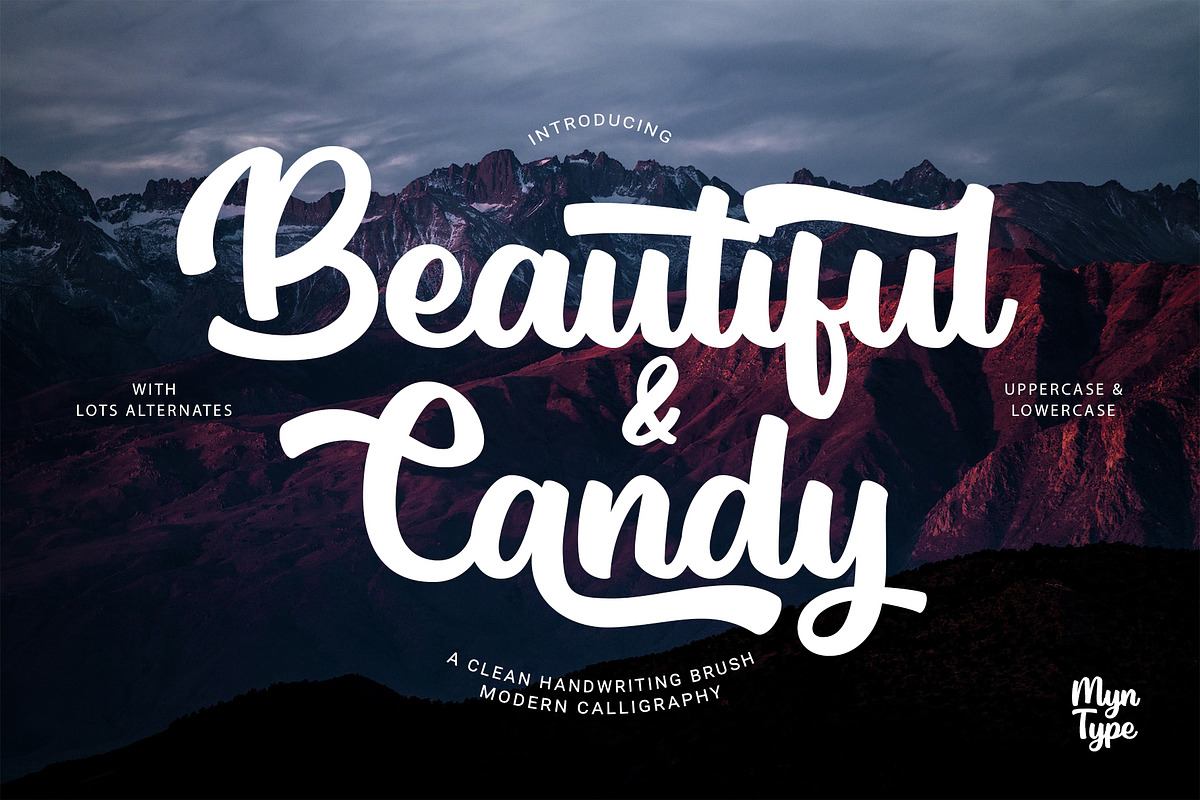
Beautiful Candy - Modern Calligraphy Font Free Download is a delicate and stylish script typeface designed to bring elegance and charm to your projects. With its smooth, flowing curves and sophisticated letterforms, this font is perfect for wedding invitations, branding, logos, social media posts, and more. Its modern calligraphy style combines timeless beauty with contemporary flair, making it ideal for high-end designs, personal stationery, and creative projects. Whether you're designing for a luxury brand, crafting a personalized gift, or creating an elegant event invite, Beautiful Candy - Modern Calligraphy Font Free Download allows you to explore its refined style in personal projects before purchasing a commercial license. Add a touch of grace and beauty to your designs with this beautifully crafted modern calligraphy font.